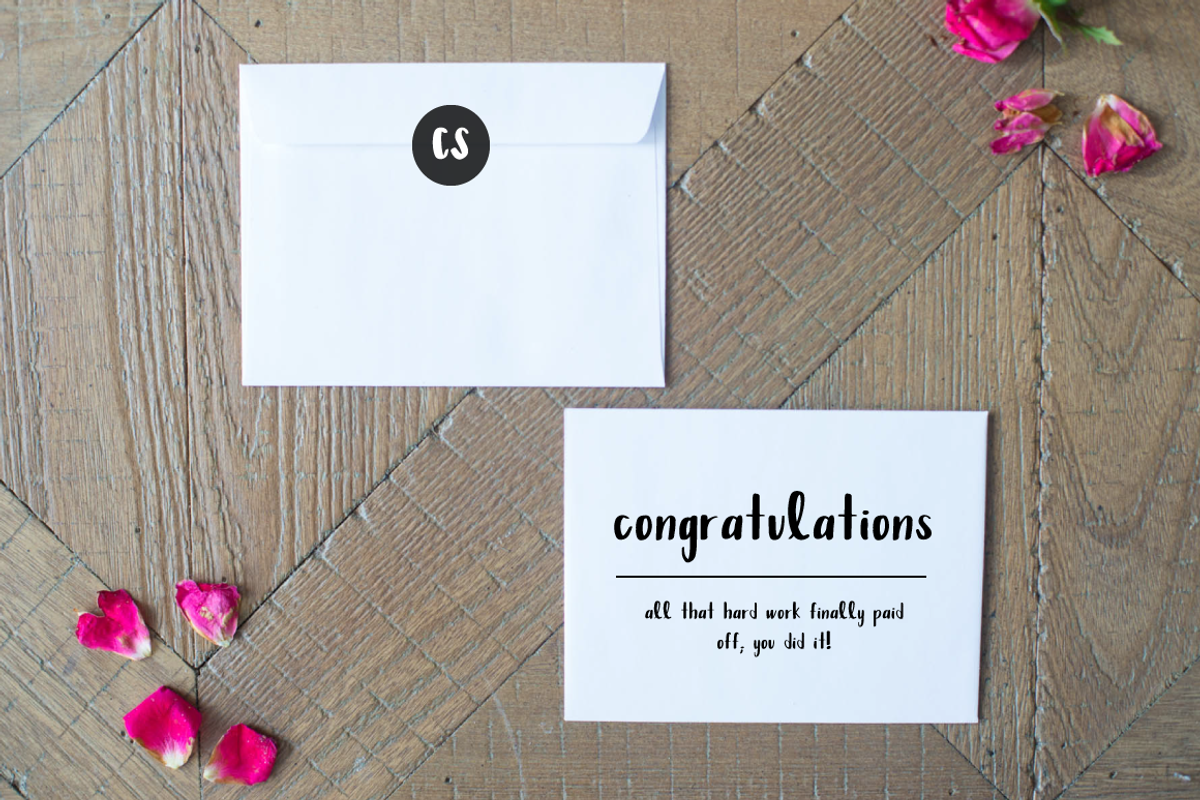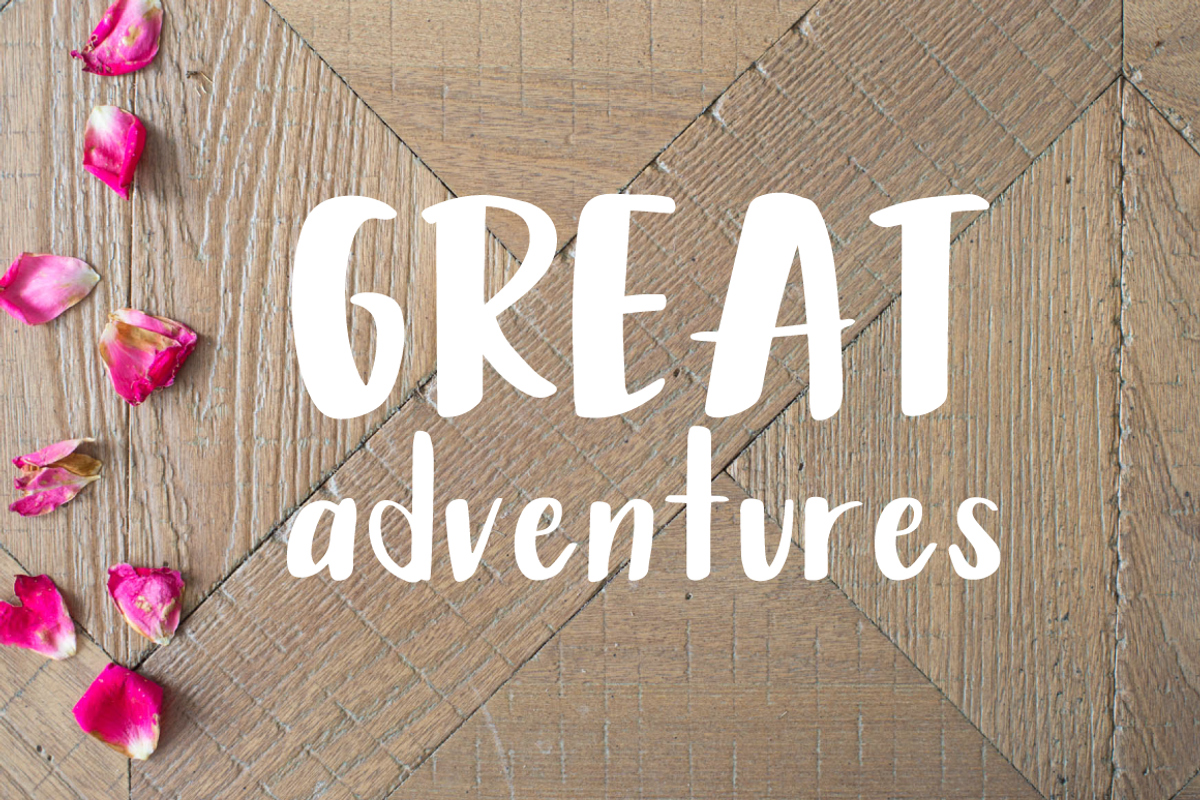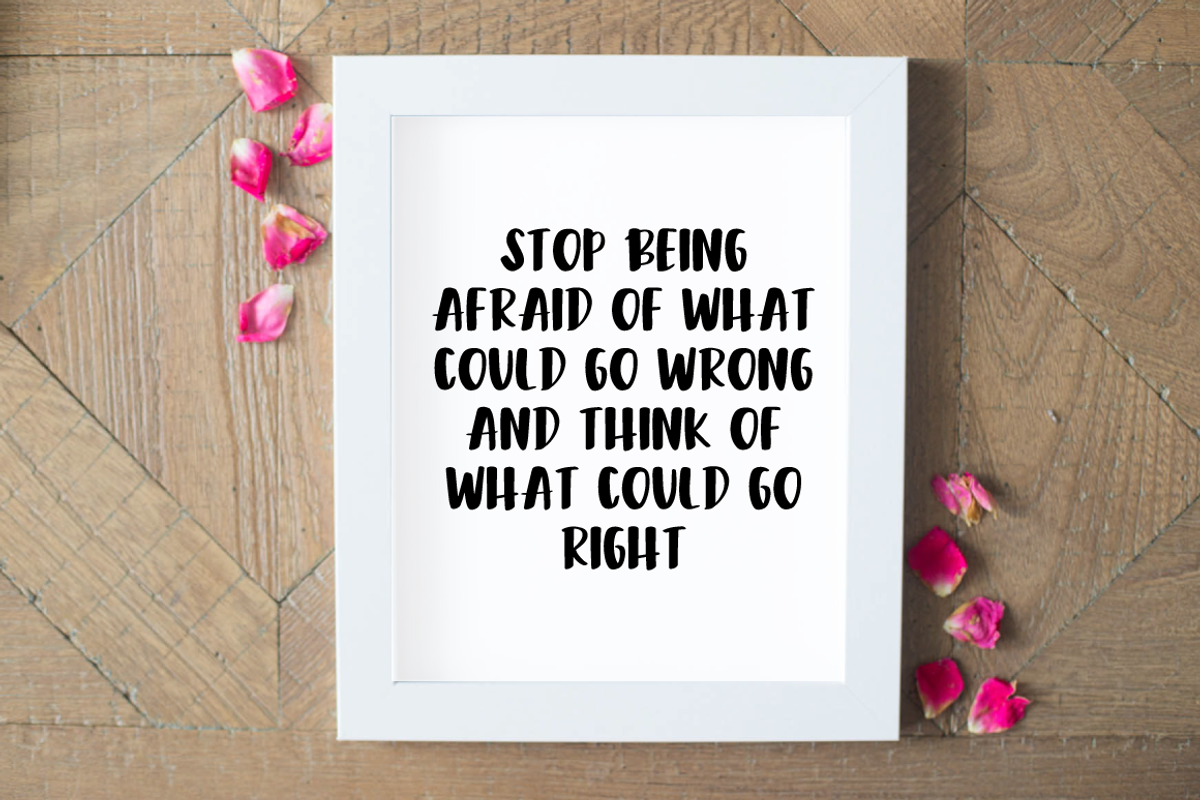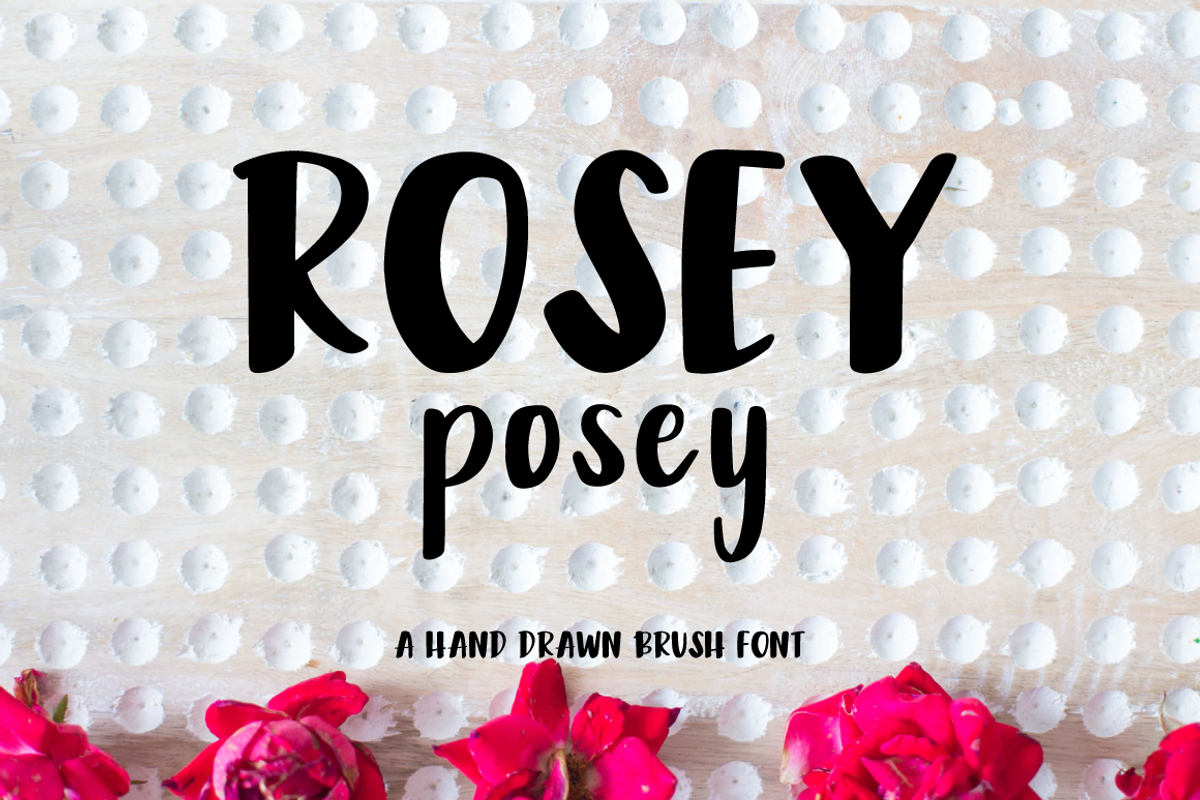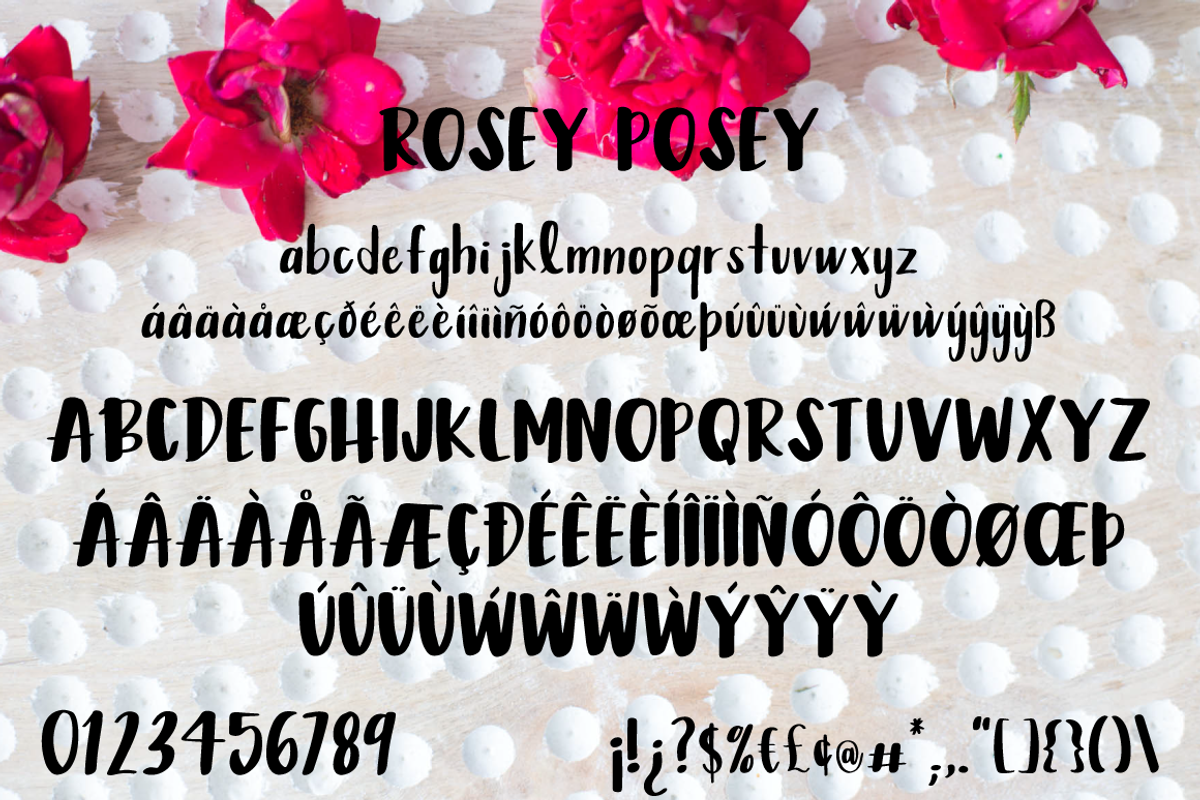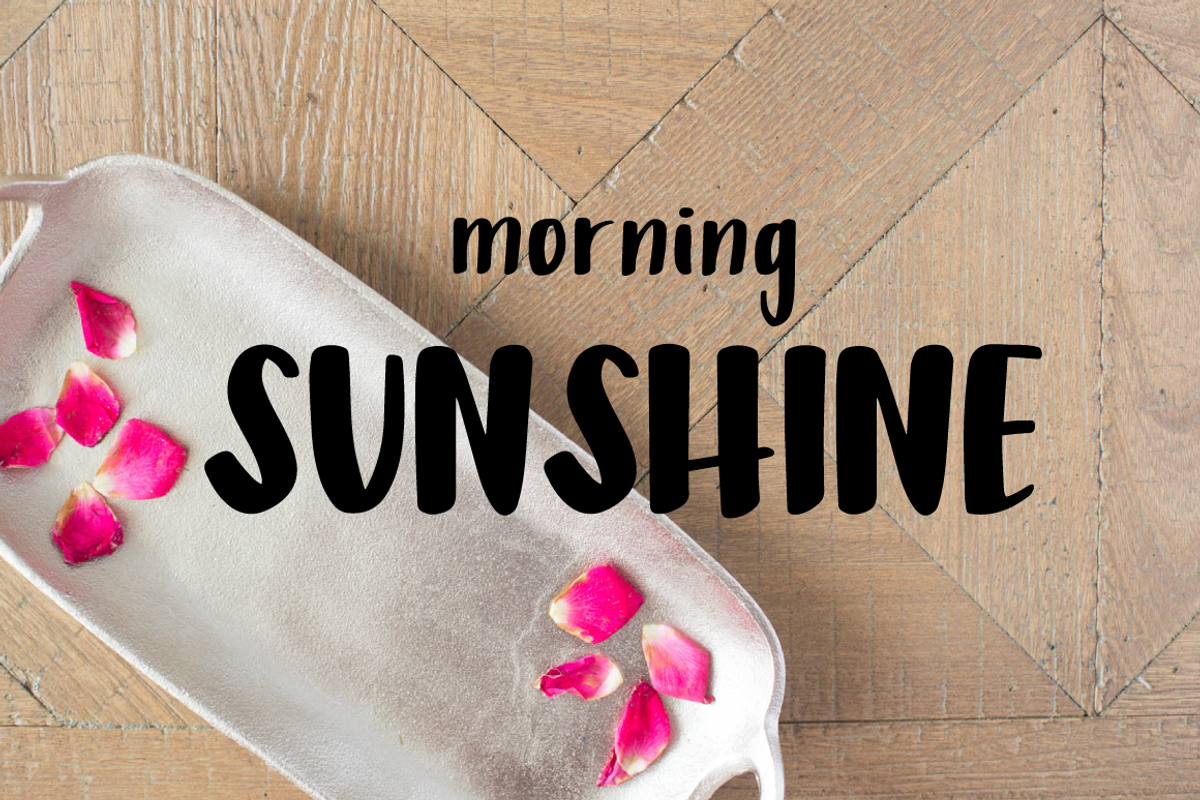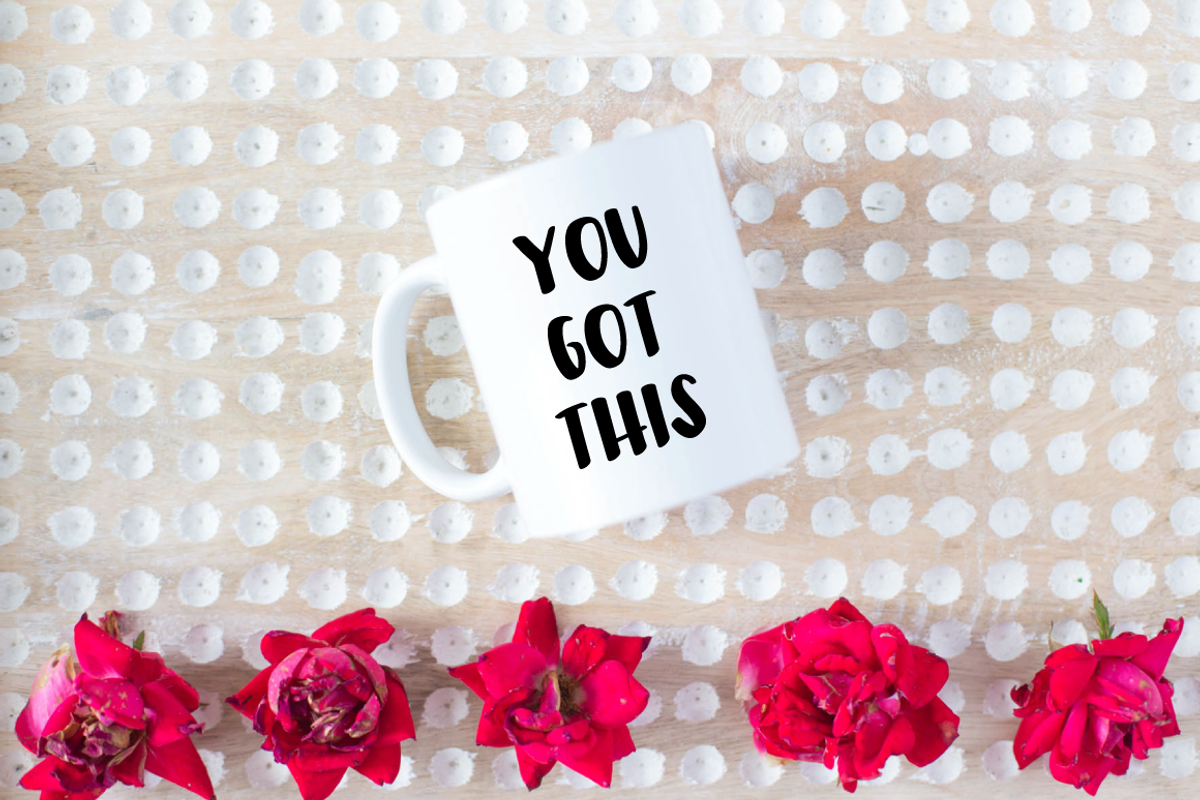
Rosey Posey Brush Font
Enhance your designs with gorgeous multilingual hand-lettered brush font. Rosey Posey is a great mix of modern brush lettering uppercase characters and the simplicity of hand-lettered lowercase characters.
Rosey Posey Brush Font works perfectly for, website branding, stationery, packaging, magazine layouts, prints, DIY home decor and so much more!
Rosey Posey comes with two distinct font styles, the bold and thick uppercases and the soft and sweet lowercases. Mix and match both styles together to fit your design needs.
This font has full Western European MULTILINGUAL support which includes the characters below and more (see last photo):
áâäàåæçðéêëèíîïìñóôöòøõœþúûüùẃŵẅẁýŷÿỳß ÁÂÄÀÅÃÆÇÐÉÊËÈÍÎÏÌÑÓÔÖÒØŒÞÚÛÜÙẂŴẄẀÝŶŸỲ